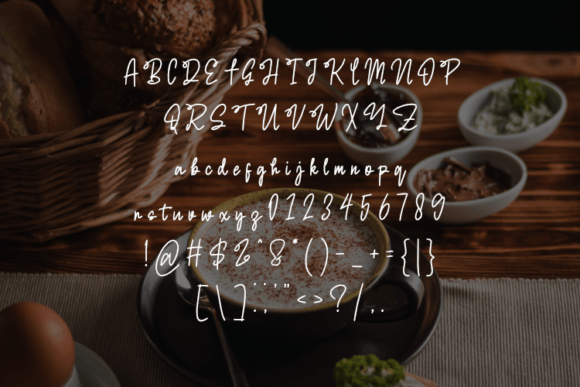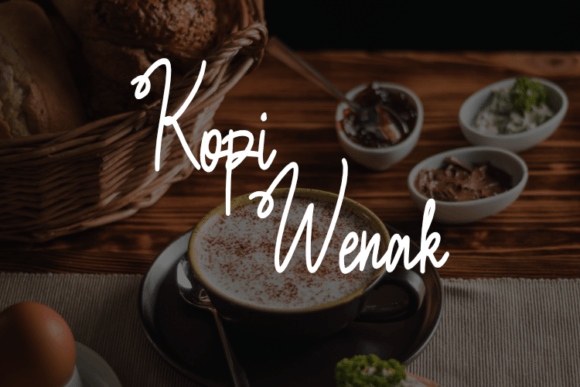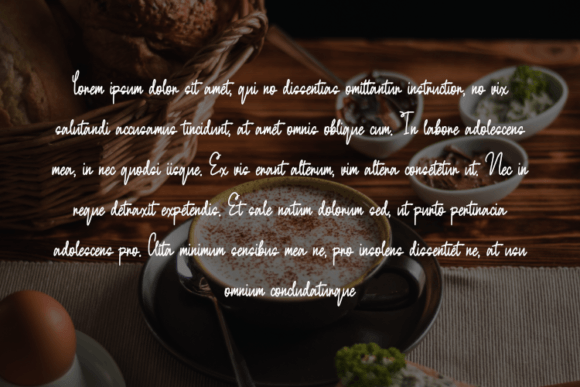
Coffee Kincang Font: Elevate Your Designs with Elegance and Sophistication
Immerse yourself in the world of typography with Coffee Kincang, the font designed to redefine fashion and style in every sense. This stunning font is tailormade to seamlessly merge with any kind of design, making it the ultimate creative partner for designers and crafters alike. With its versatility and compatibility with all types of software, Coffee Kincang is set to revolutionize the way you approach design.
The Perfect Blend of Style and Versatility
Coffee Kincang is more than just a font – it’s a design essential that injects a touch of elegance and sophistication into any project. Whether you’re working on clothing, t-shirts, or a plethora of other products, this font ensures your designs stand out and speak volumes. Its unique style and versatility make it the perfect choice for designers looking to elevate their craft and create stunning visual experiences.
Seamless Integration with Any Design
One of the standout features of Coffee Kincang is its ability to seamlessly merge with any kind of design. Whether you’re working on a minimalist project or a complex, multi-element design, this font adapts effortlessly to create a cohesive and visually appealing aesthetic. This flexibility makes it an ideal choice for designers who need a font that can keep up with their creative vision.
With Coffee Kincang, the design possibilities are endless. Use it to create stunning typography for:
- T-shirts and apparel
- Business cards and stationery
- Branding and packaging
- Digital graphics and social media assets
Wherever you need to make a design statement, Coffee Kincang is the perfect choice.
Why Choose Coffee Kincang?
So why choose Coffee Kincang over other fonts? Here are just a few reasons:
- Unique Style: Coffee Kincang has a distinctive style that sets it apart from other fonts.
- Versatility: This font can be used for a wide range of design projects, from fashion to branding.
Coffee Kincang is more than just a font – it’s a creative partner for design excellence. With its unique style, versatility, and compatibility with all types of software, this font is set to revolutionize the way you approach design. Whether you’re a seasoned designer or just starting out, Coffee Kincang is the perfect choice for anyone looking to elevate their designs with elegance and sophistication.